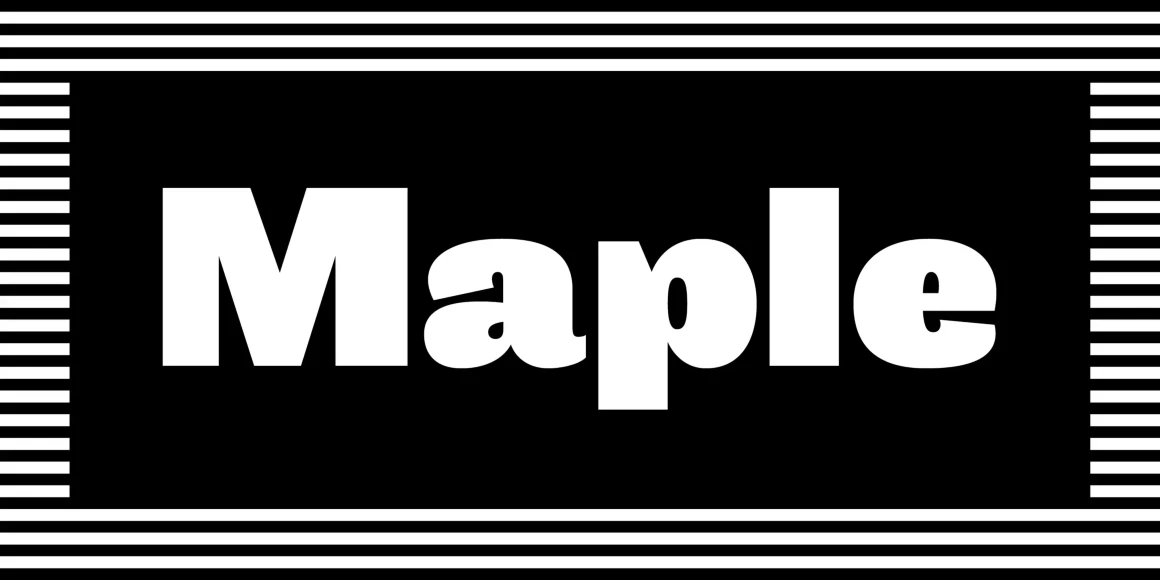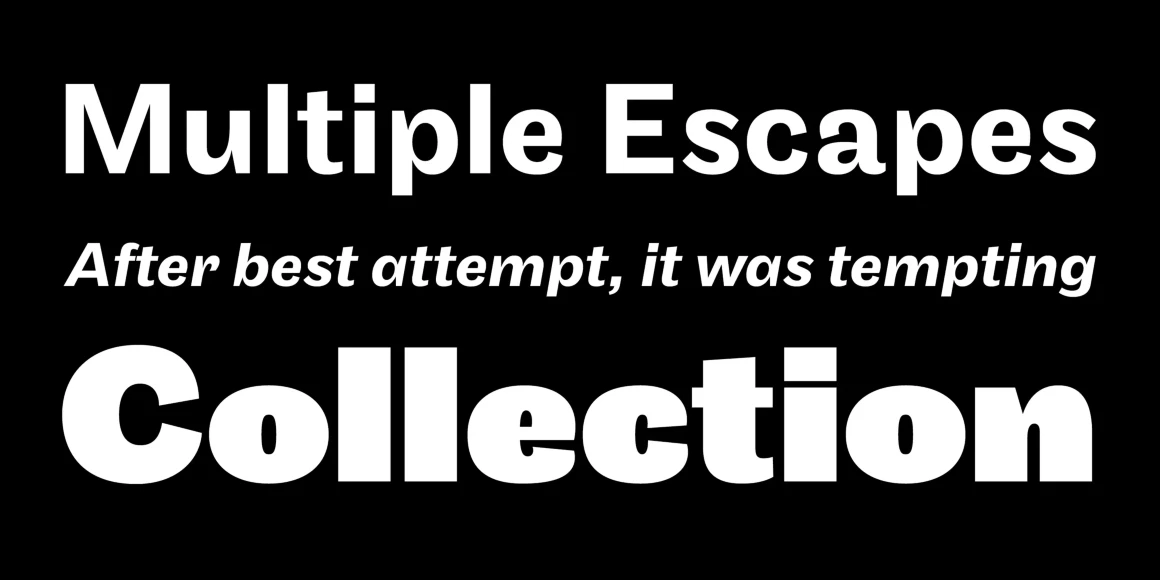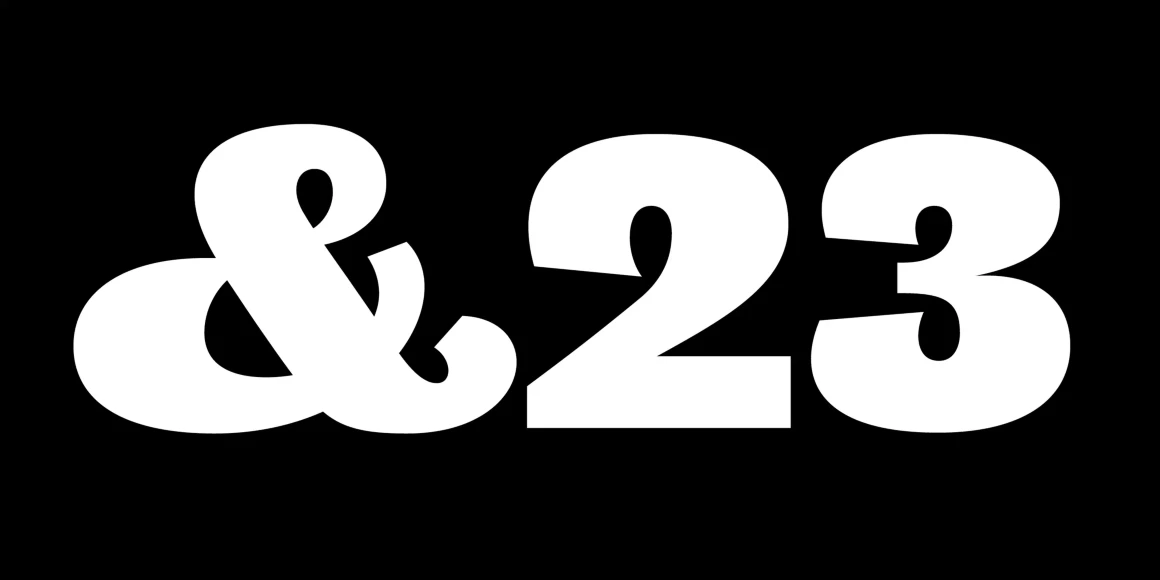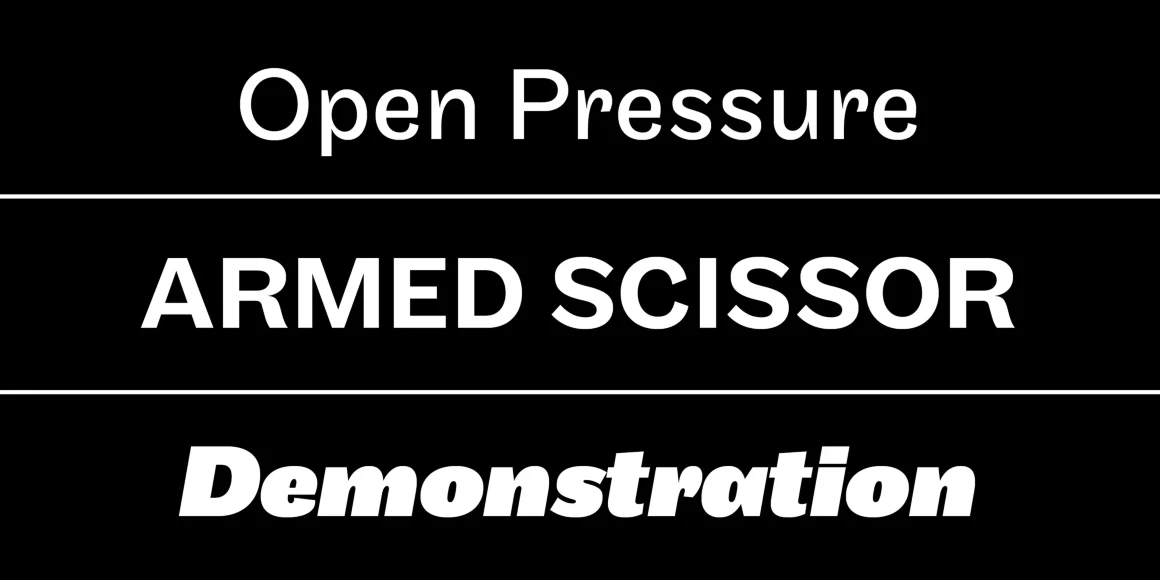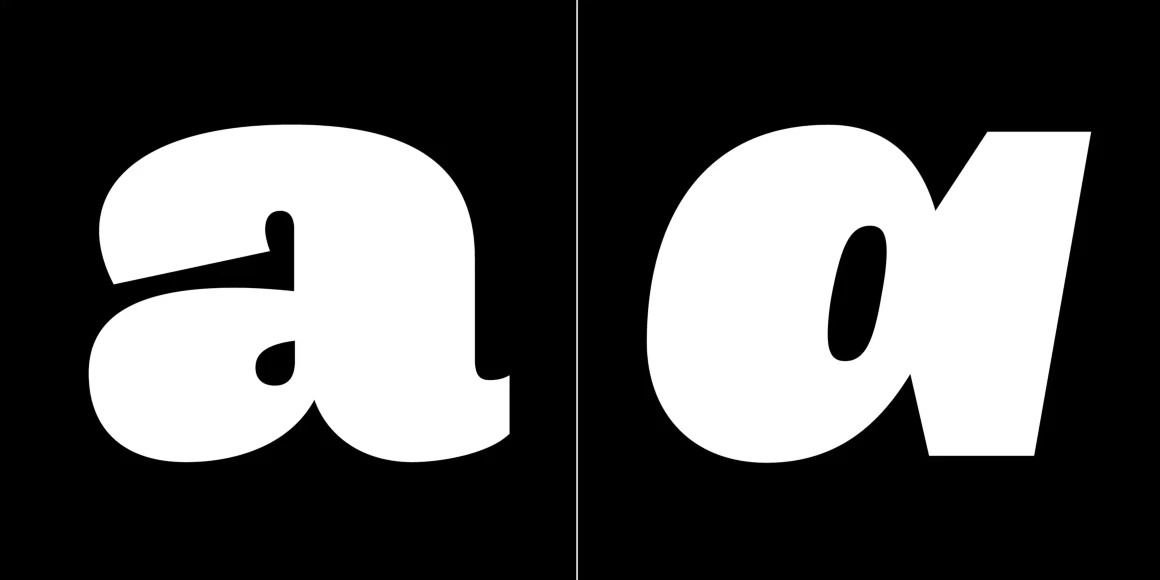
Maple is the offspring of Process Grotesque — our retired interpretation of the Stephenson Blake grotesques, originally released in 2002. Although the original was a well-intentioned effort, its uneasy lowercase and adherence to a model left it wooden and unsure. It was summarily shown the door in 2003.
Maple continues the spirited tradition of the early grotesques, a genre that can be traced back to the first sans serif shown by William Caslon in 1816. With the Stephenson Blake models as a historical starting point, Maple further explores the multi-functionality of the genre beyond its origins in 19th-century advertising, making it equally at home in text and display environments. The family is available in four widths with matching italics.